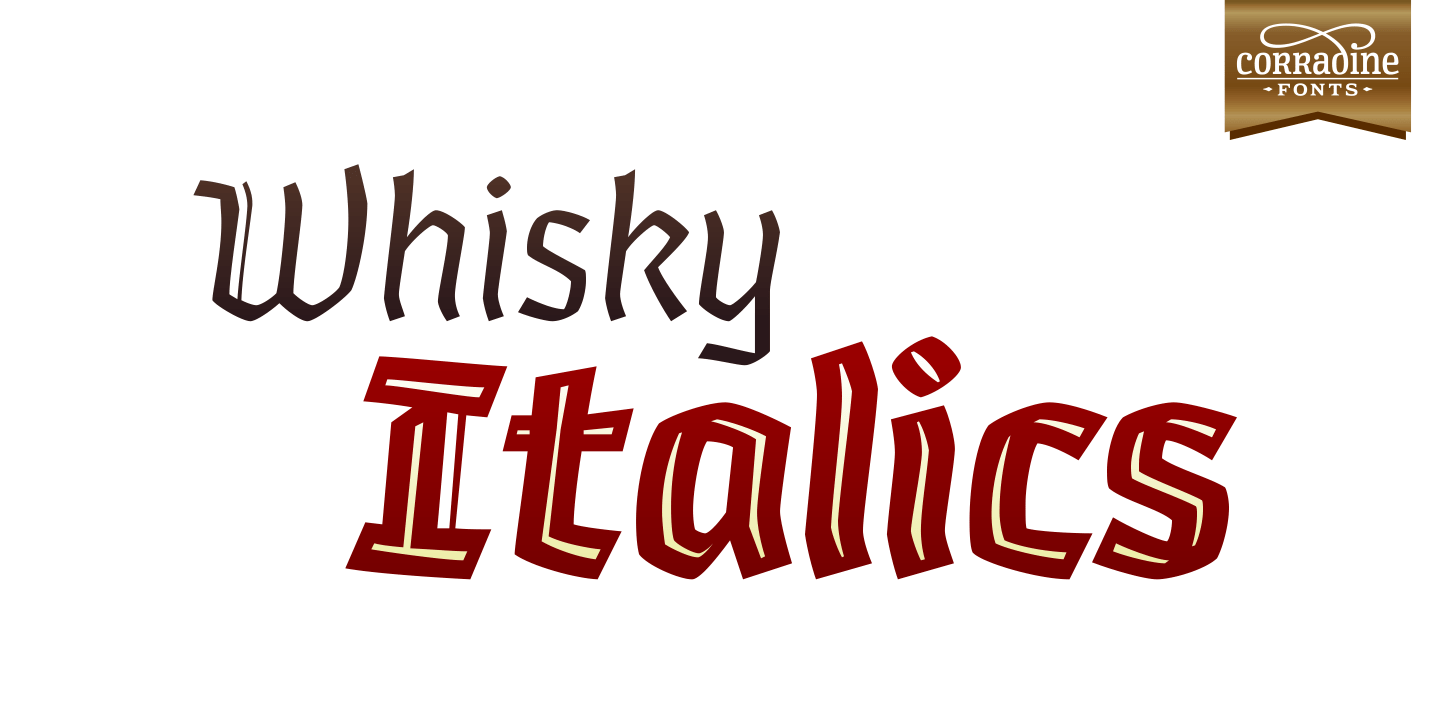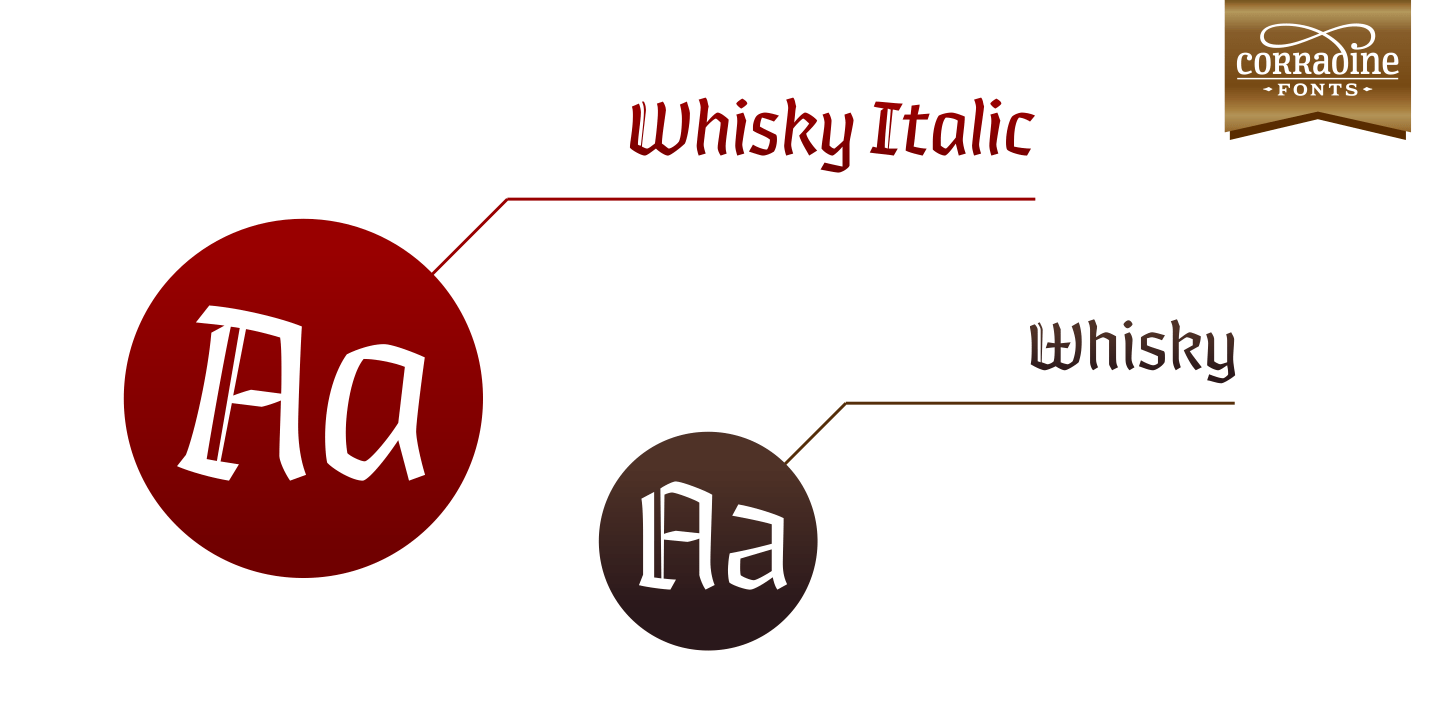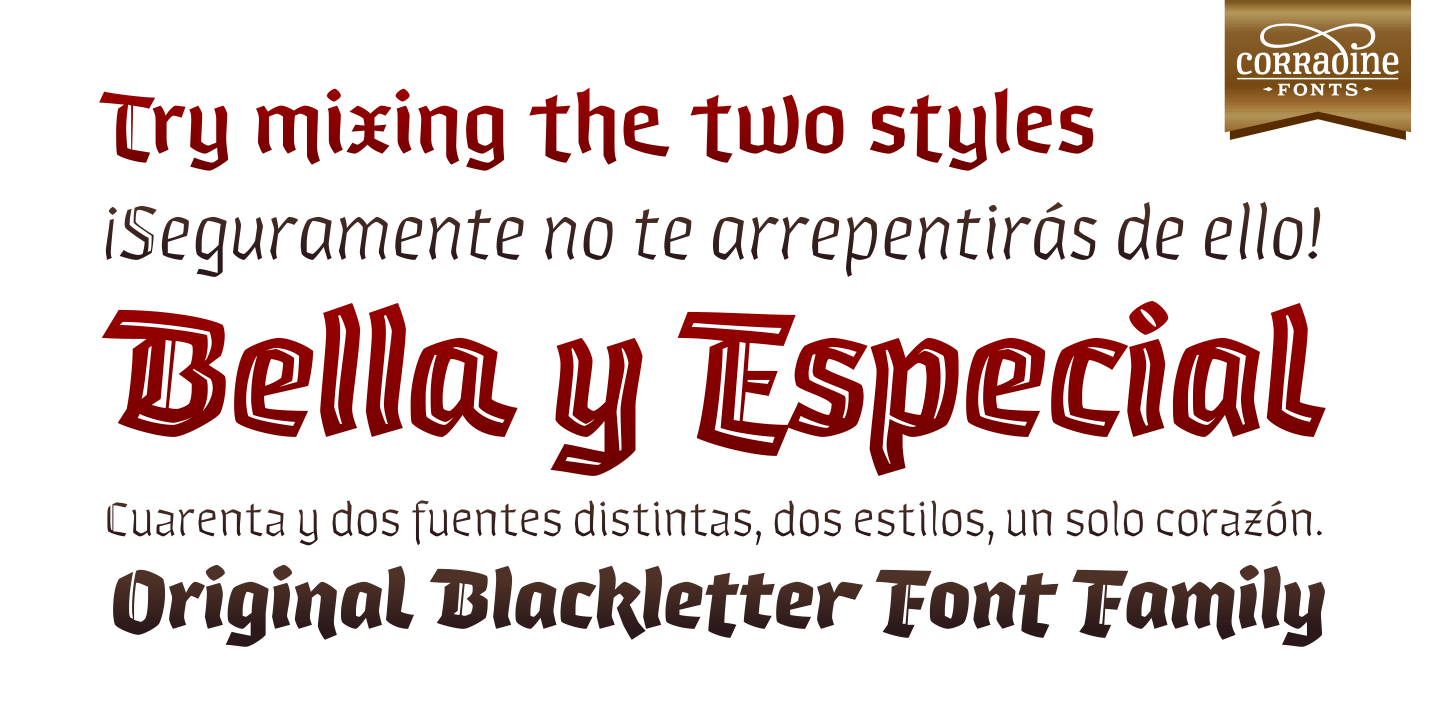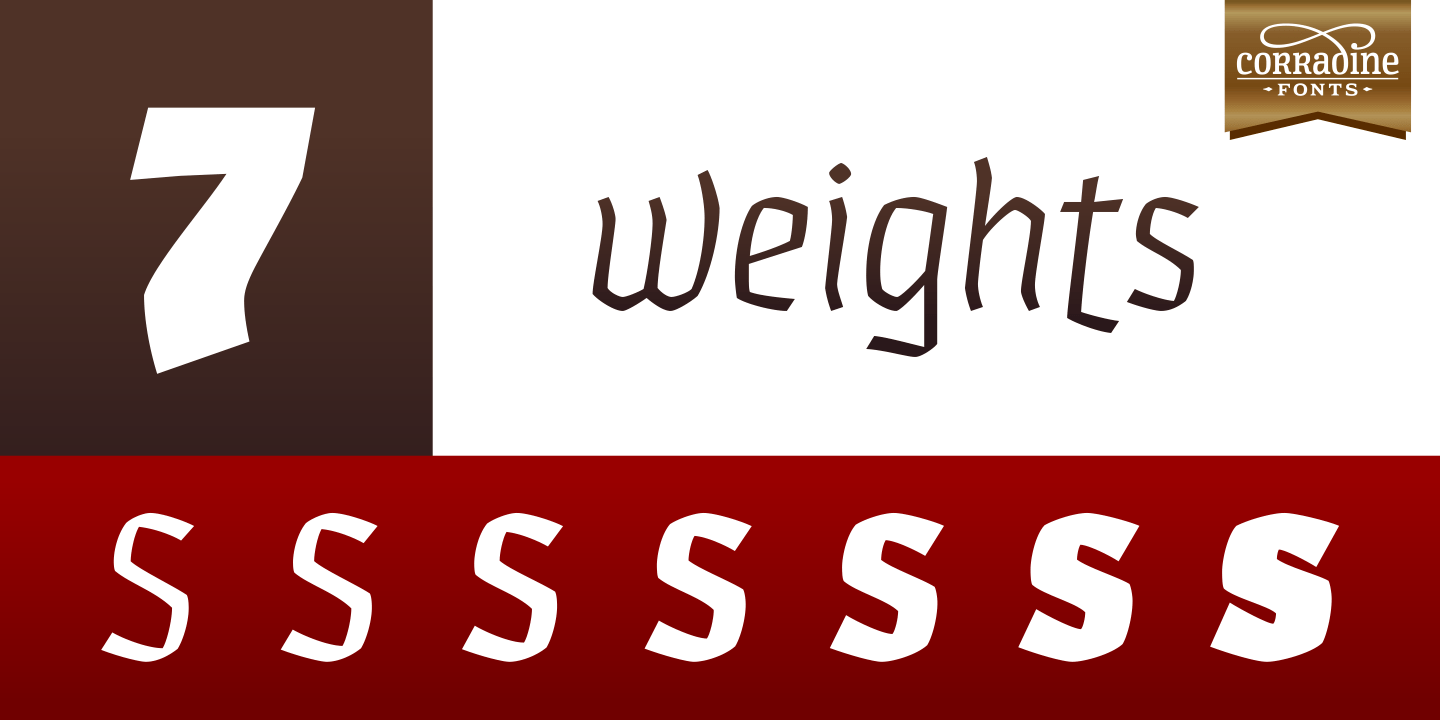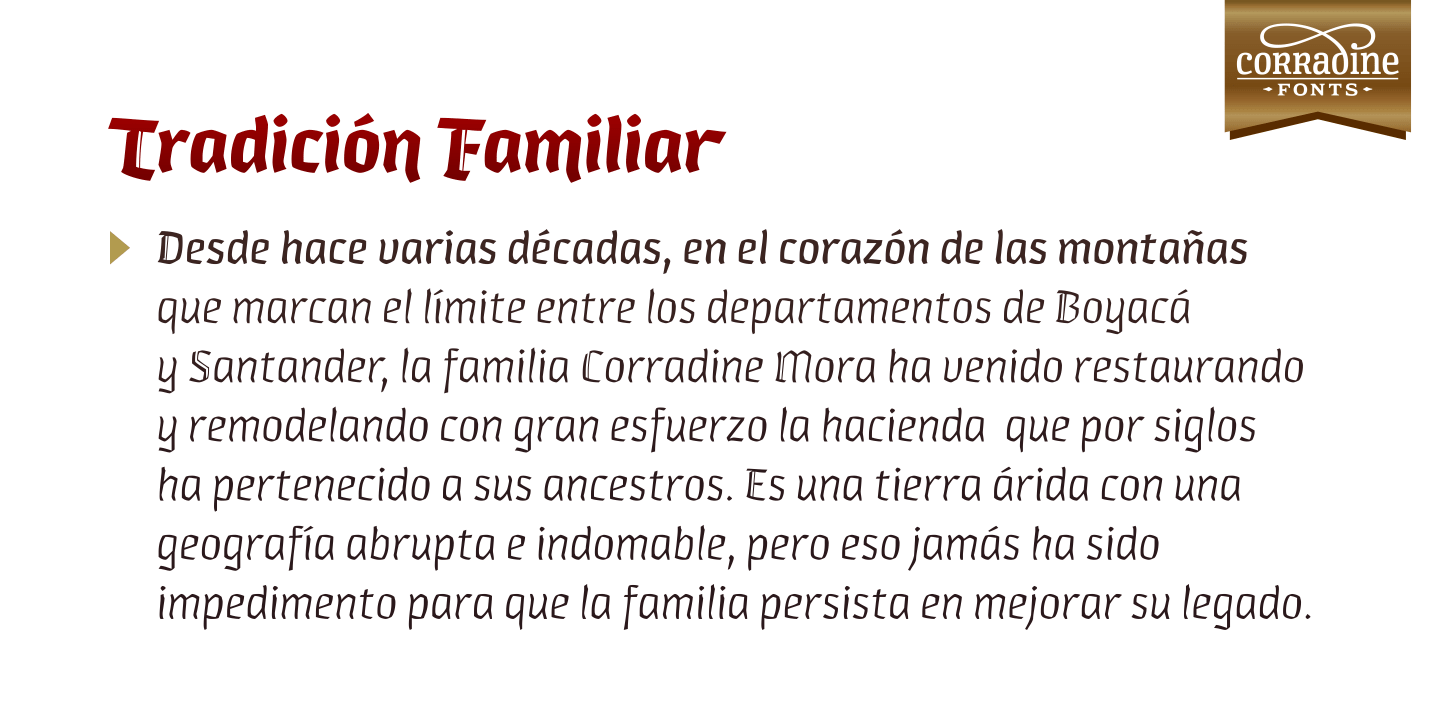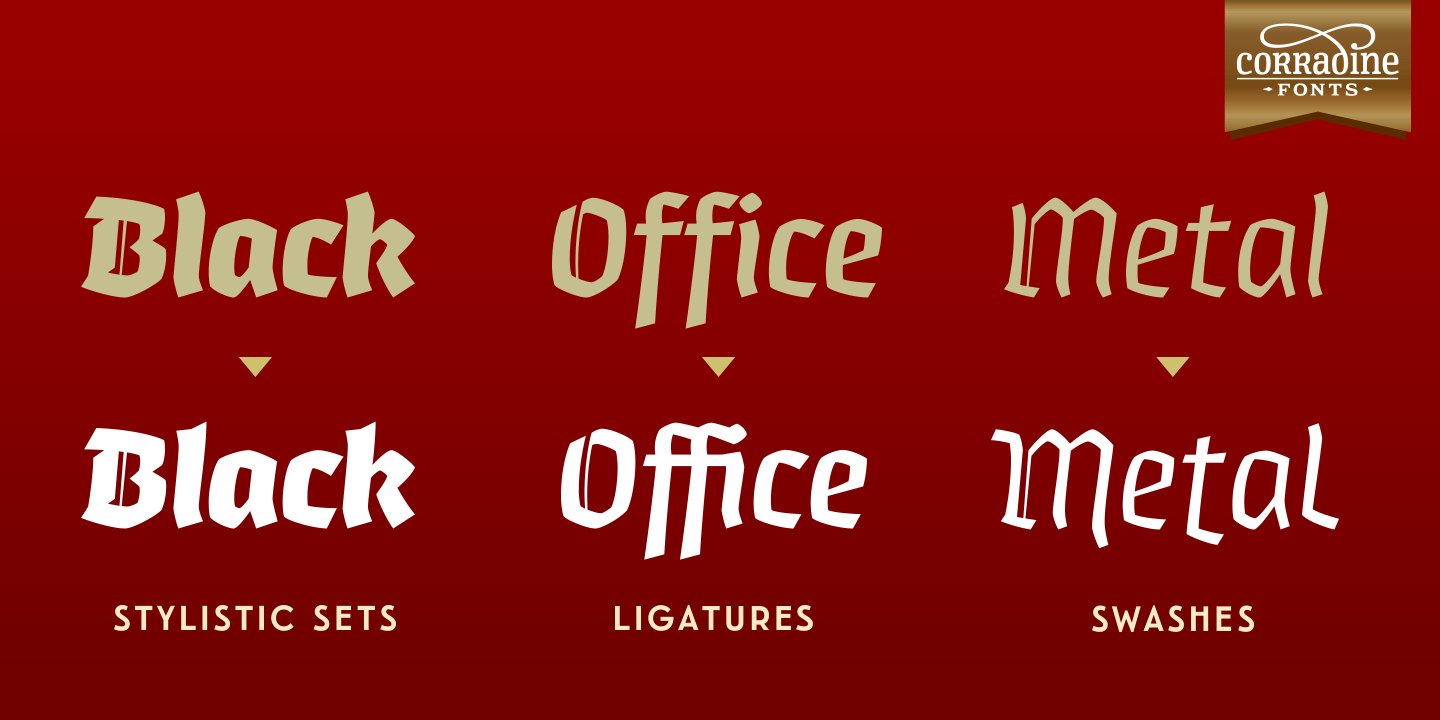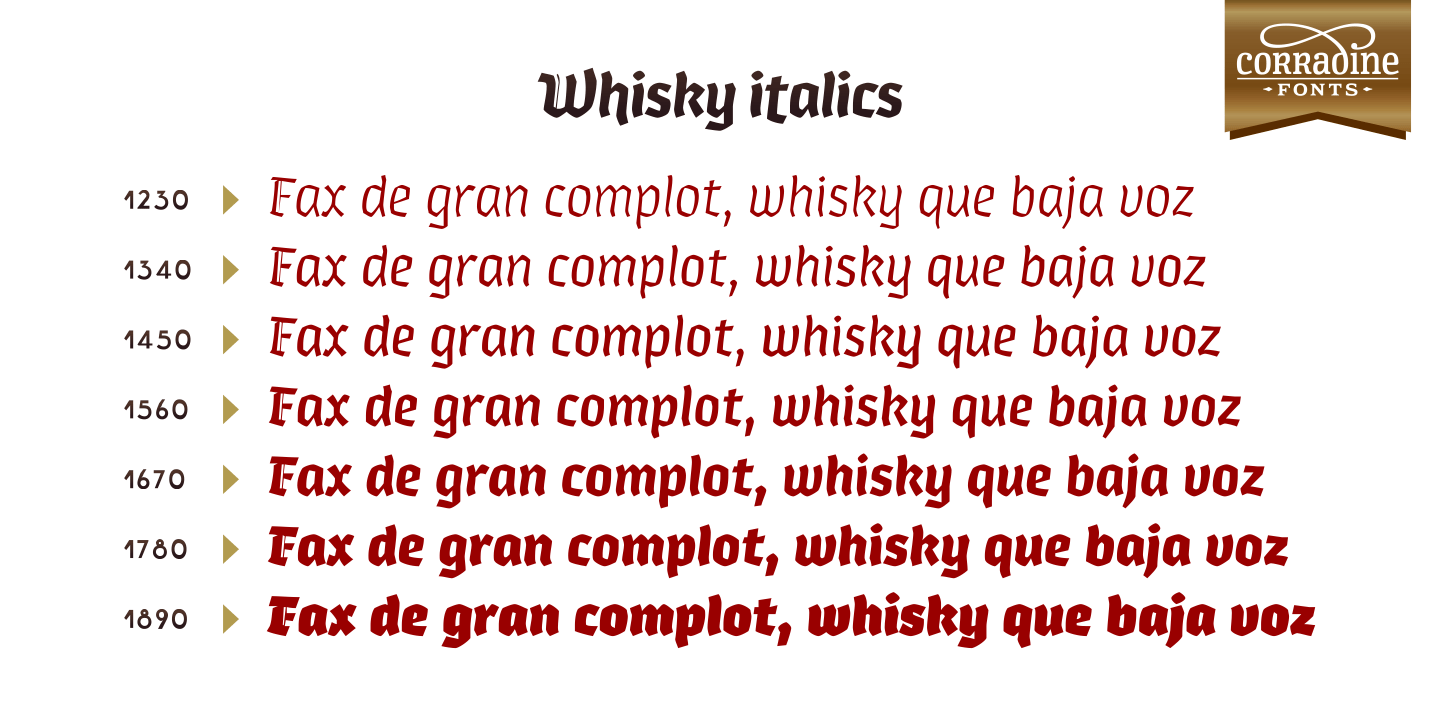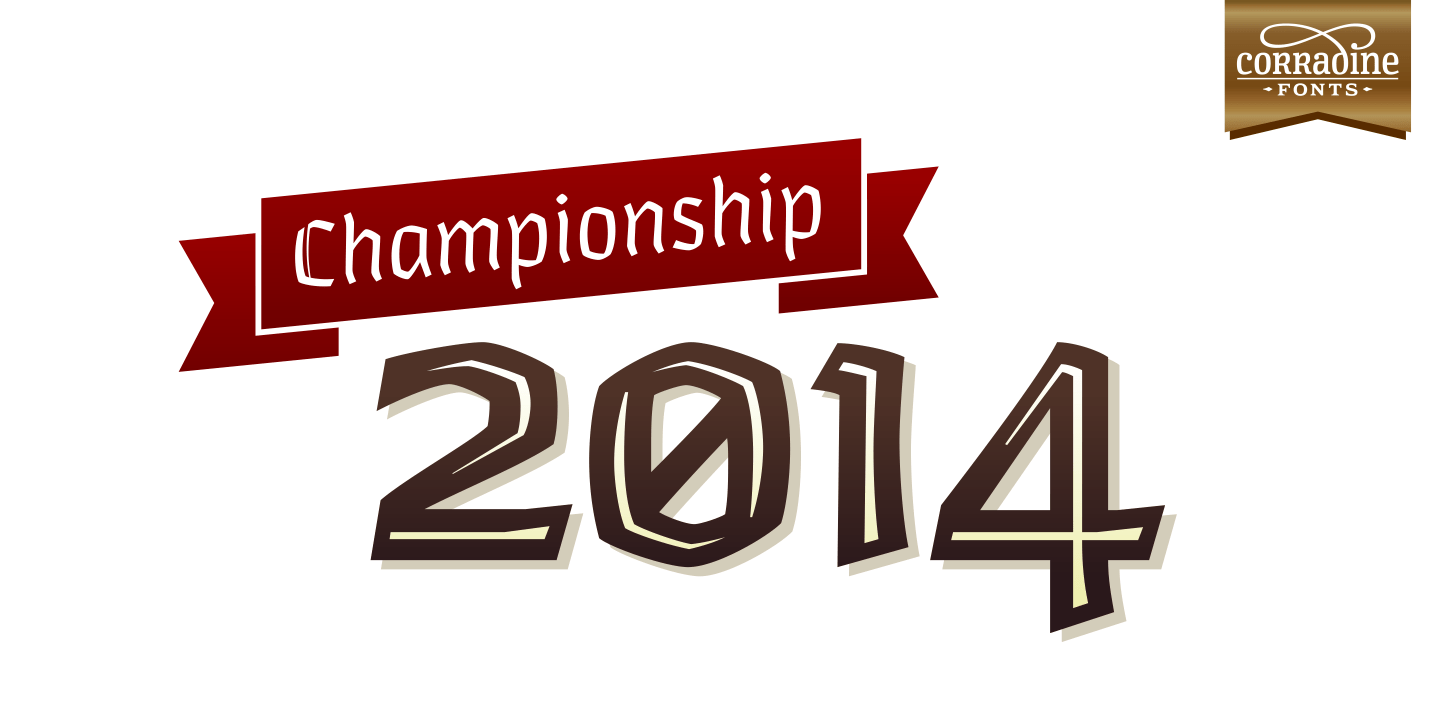
Whisky Italics
Whisky is a blackletter font family with a casual touch that makes it look friendly and current. The stroke varies its thickness and angle endings making it form very dynamic bodies of text. Whisky Italics are the corresponding versions to the original Whisky fonts made to complement the family with a new style.
Like the original Whisky family Whisky Italics includes seven weights, each with a fill and a inline version that allow you to develope more colorful applications overlaping them as layers. Also by using Open Type features you can access to an extended set of characters wich contains swashes and alternative endings to make more playful compositions.